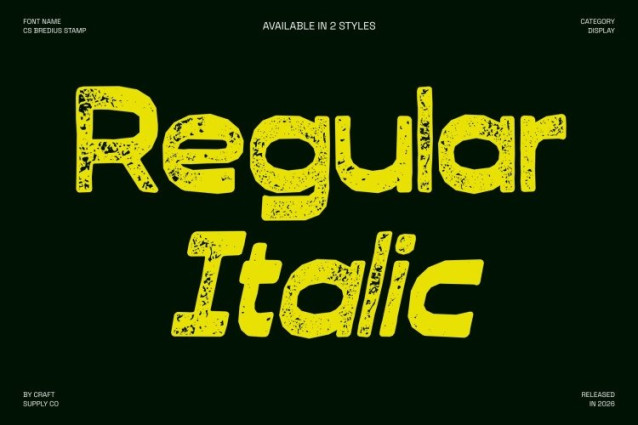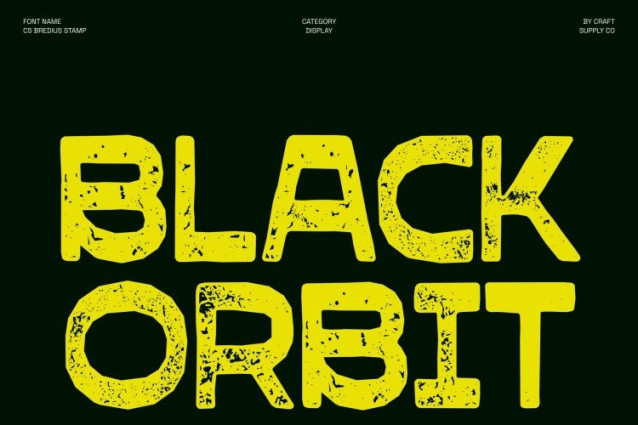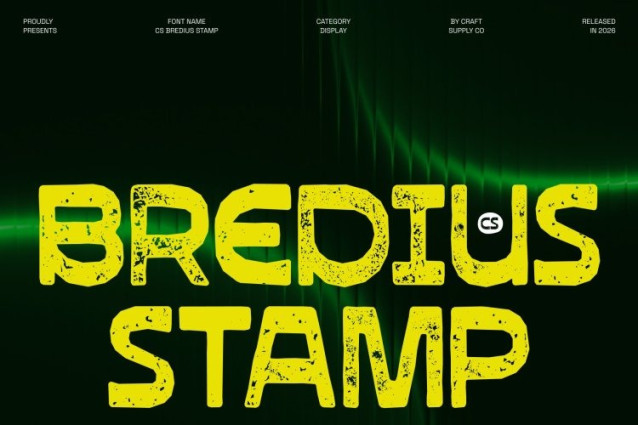
CS Bredius Stamp Font
CS Bredius Stamp Font This enhances its cheerful, unconventional style with a subtle stamped texture that adds depth and handcrafted authenticity. The expressive rhythm and playful twists in each letterform remain bold and eye-catching, now enriched with gentle ink variations and softly distressed edges that give the font a tactile, artistic feel.
Unusual Letterforms with Organic Imperfection
The quirky, uneven strokes and whimsical proportions become even more distinctive through the stamped effect. These slight imperfections amplify its lively and spontaneous character, making every word feel dynamic and full of personality. The result is a display font that feels both creatively free and visually impactful.
Ideal for Expressive and Artistic Branding
Perfect for posters, logos, editorial headlines, packaging, and imaginative campaigns, this font thrives in projects where originality takes center stage. Its bold yet friendly presence makes it especially suited for modern brands, creative studios, and lifestyle visuals that want to stand out with confidence.
Vibrant, Fun, and Unapologetically Unique
More than just a playful typeface, this is a celebration of design individuality. The fusion of quirky structure and textured finish transforms text into expressive artwork bringing energy, warmth, and unmistakable charm to any composition.